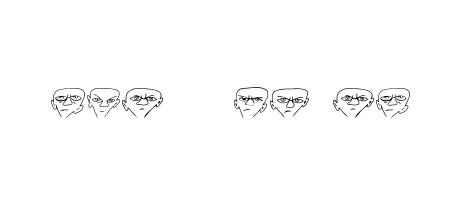
Pablo
Pablo Regular (Hypothetical): This whimsical, hand-drawn font evokes a sense of childlike simplicity with its irregular lines and slightly uneven letterforms. The strokes are thin and expressive, giving a playful, almost cartoonish quality. It would be well-suited for informal projects or designs targeting a younger audience.